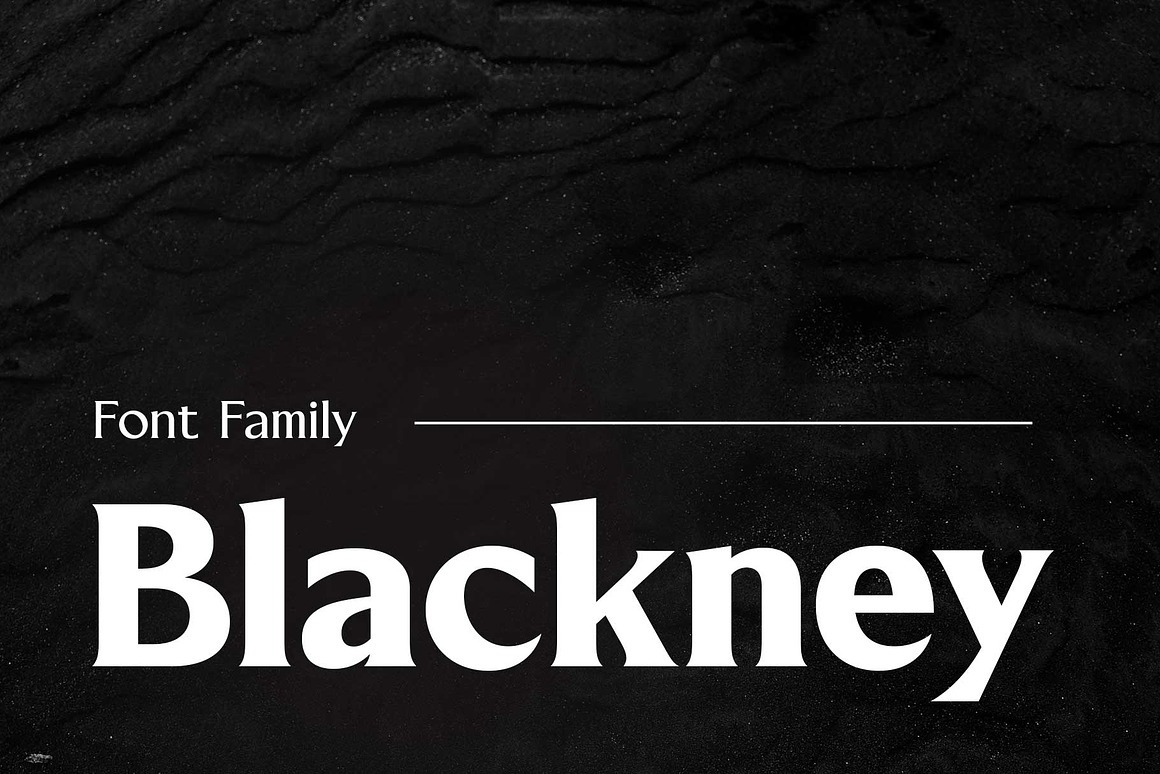
Blackney Font
About Blackney
Blackney is a strong serif font with medium contrast, inspired by gothic style and modern-classic fashion. It is carefully designed with medium ascenders to give a solid appearance, while its sharp serifs make the letters look bold and confident.